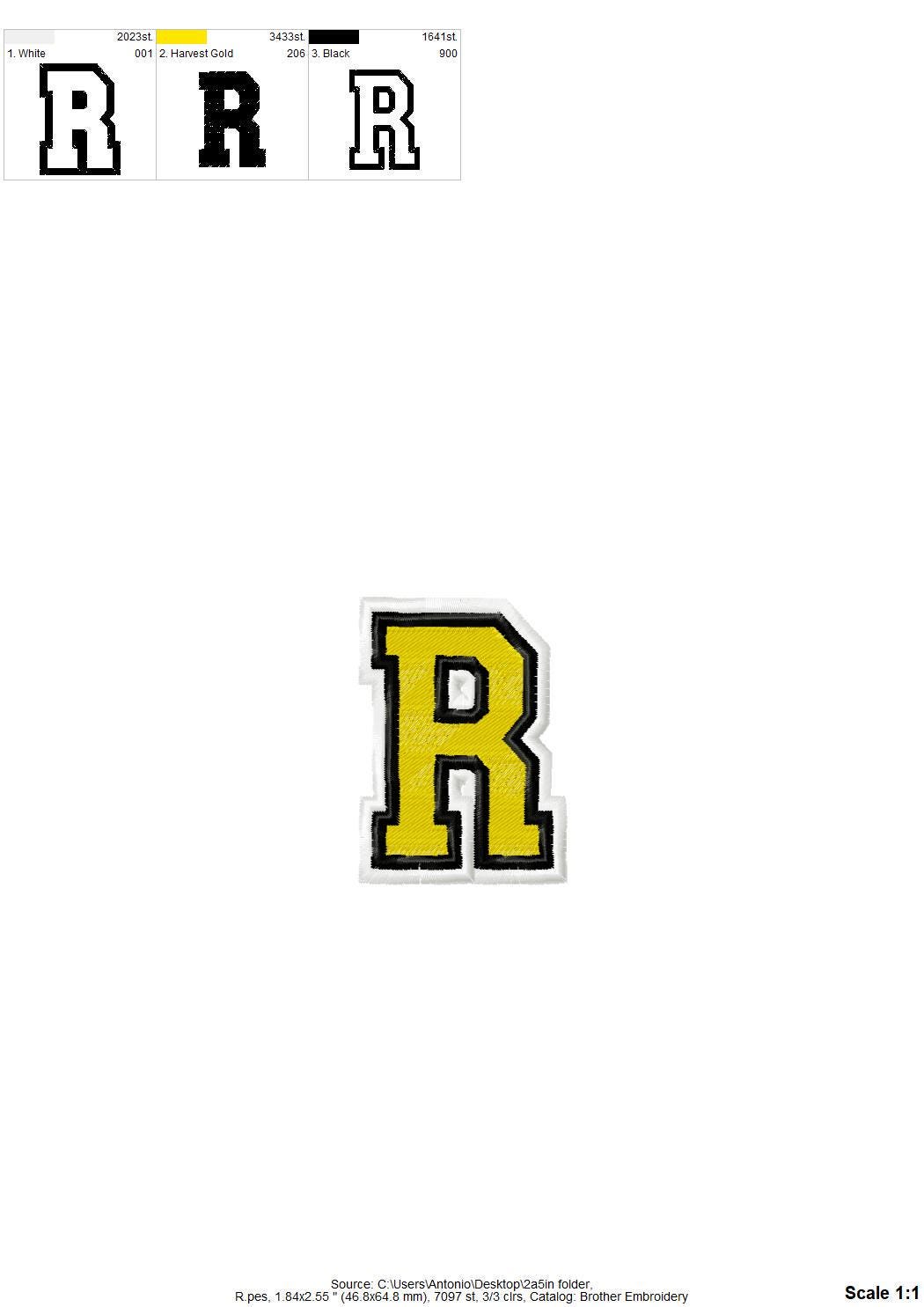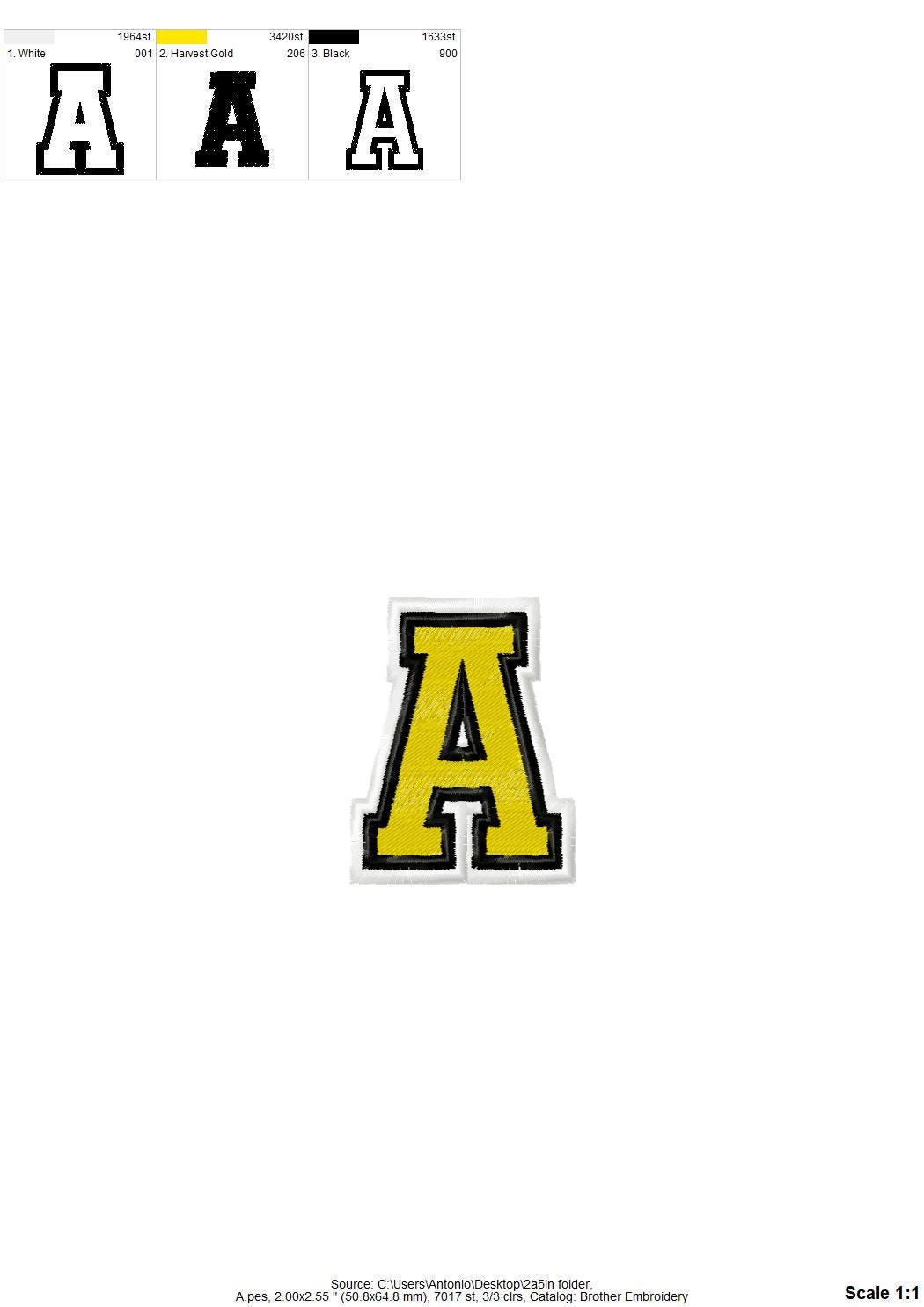
2 outlines Athletic Sport high school varsity collegiate, block mini Font machine embroidery designs - assorted sizes, BX font included
Font is fill stitched
Font has 3# colors
Font with 2 contrast outlines
1.4 inches
1.9 inches
2.2 inches
3.3 inches